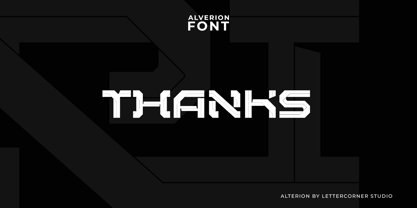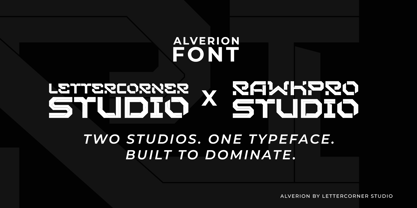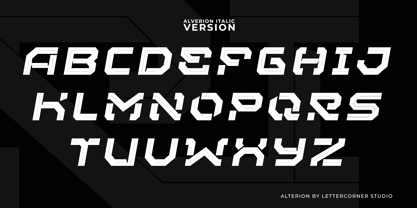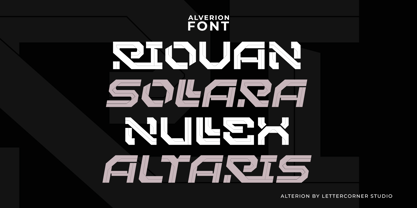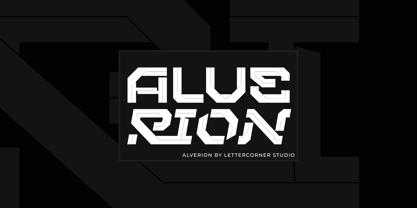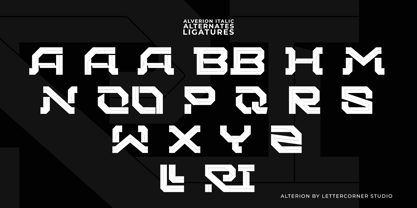
Alverion
by Mevstory Studio
The Alverion Font Family was designed by Muhammad Afif Ersya and published by Mevstory Studio. Alverion contains 2 styles and family package options. More about this family
Alverion is a bold, futuristic display typeface built for projects that demand presence. Designed by Lettercorner Studio, Alverion combines angular geometry with a structured inline detail system — giving each letterform a distinct mechanical depth that feels equally at home in sci-fi branding, game titles, editorial headers, and motion graphics.
The typeface comes in two styles — Regular and Italic — both packed with OpenType features that give designers full creative control.
OpenType Features:
— 9 Ligatures (liga + dlig): RI, Ri, ri, rI, Ls, LL, Ll, ll, lL
— 18 Stylistic Alternates: including 3 variants for A/a, 2 variants for B/b, O/o, Z/z, and swash versions of H, M, N, Q, R, S, W, X, Y
— Access All Alternates (aalt) supported
— Kerning (GPOS kern)
Character Set:
Alverion is ideal for: game titles, sci-fi film posters, futuristic brand identities, book covers, apparel graphics, music album artwork, and any design that calls for a typeface with an edge.
Designed by Muhammad Afif Ersya — Lettercorner Studio.